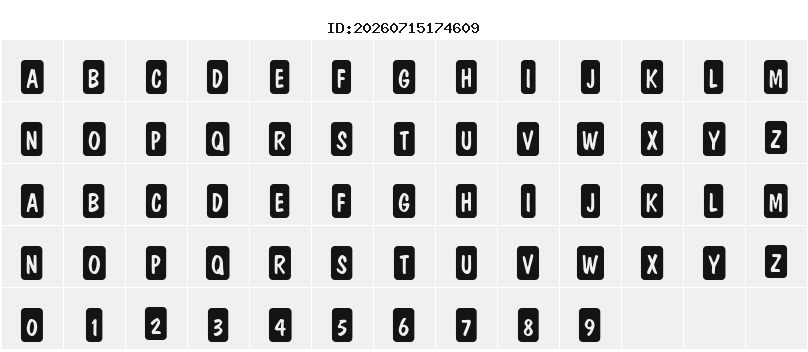
a_DomInoTtlCmRndCrn Preview
• Font Name: a_DomInoTtlCmRndCrn
About a_DomInoTtlCmRndCrn.ttf
a_DomInoTtlCmRndCrn.ttf is a modern, elegant sans-serif font designed for ultimate readability and visual harmony. Perfect for branding, headlines, web design, and print materials.